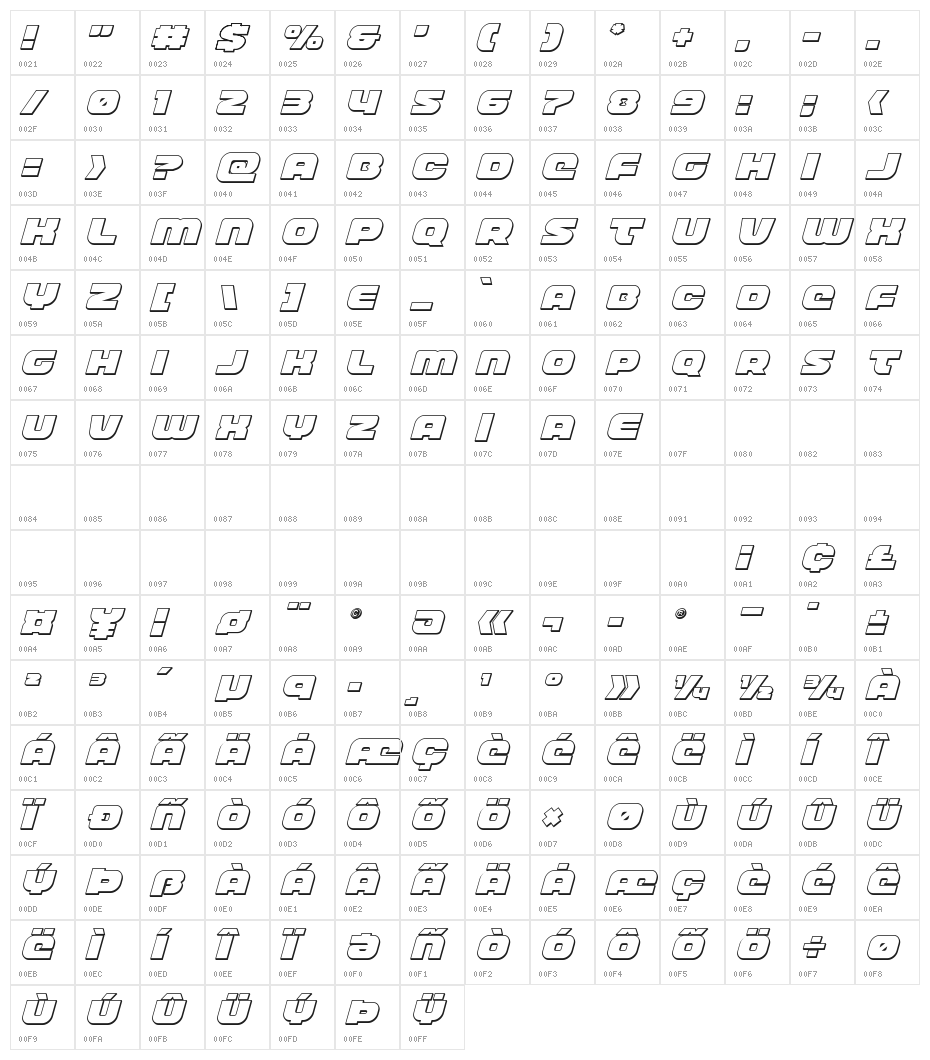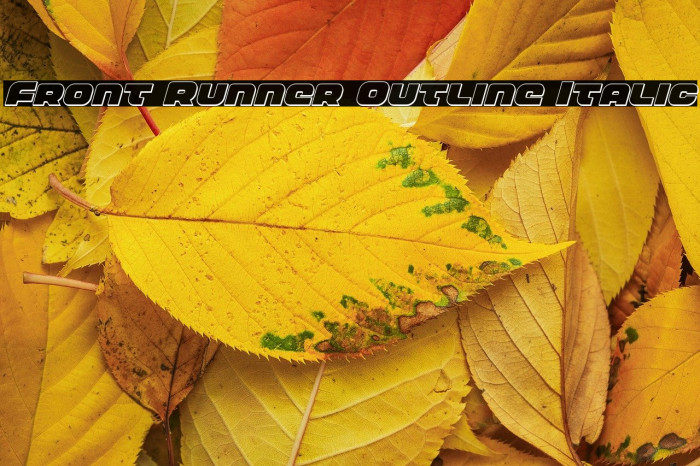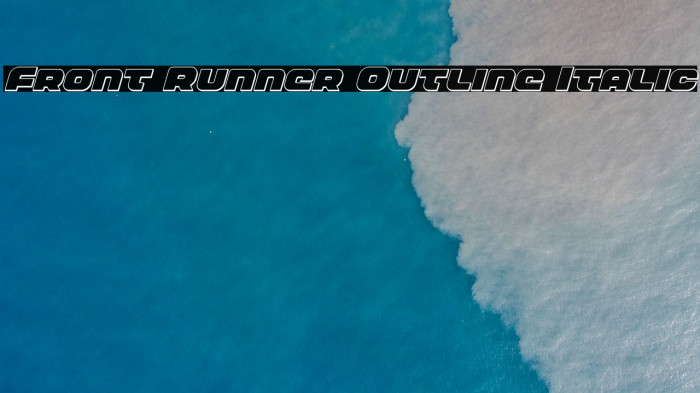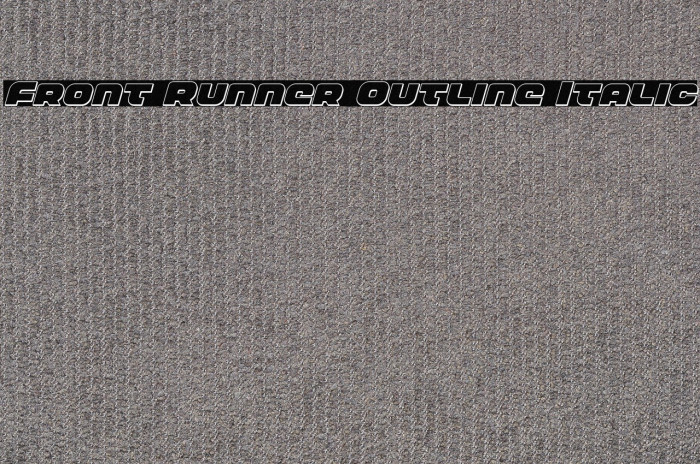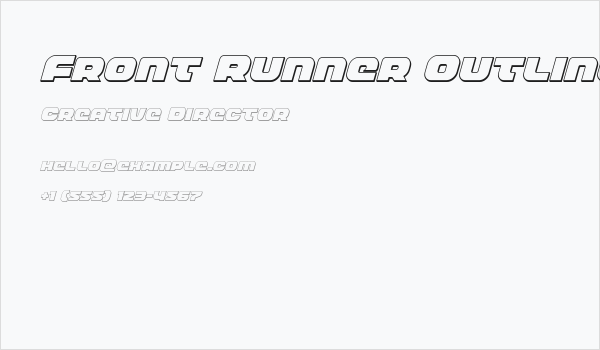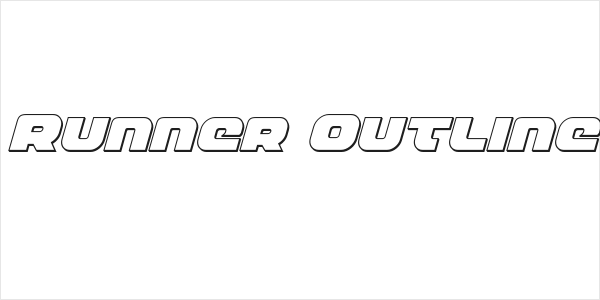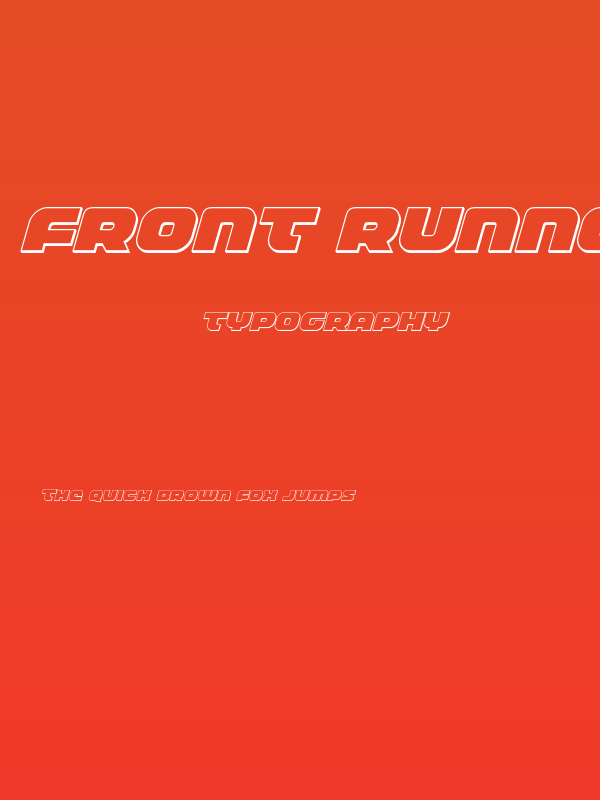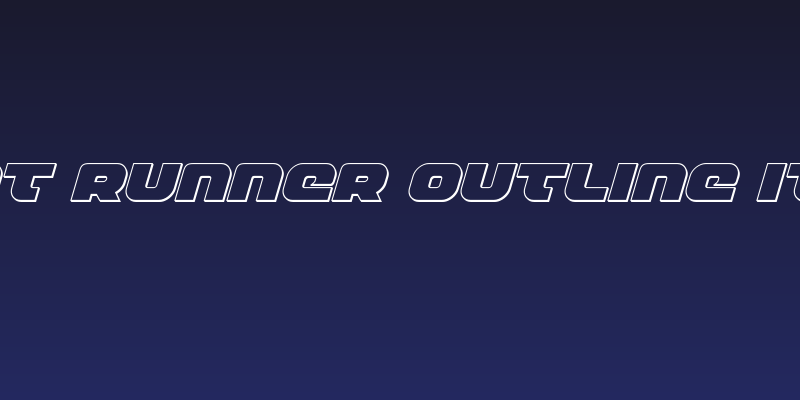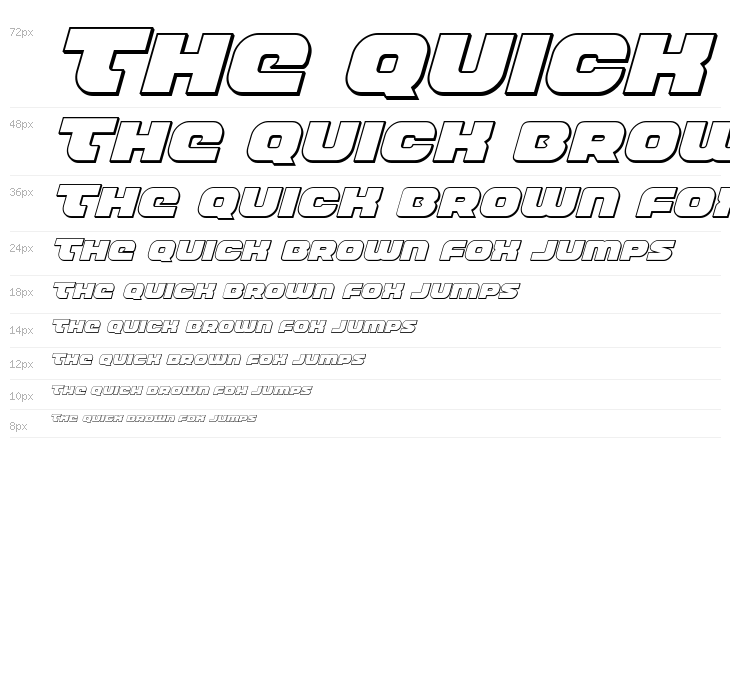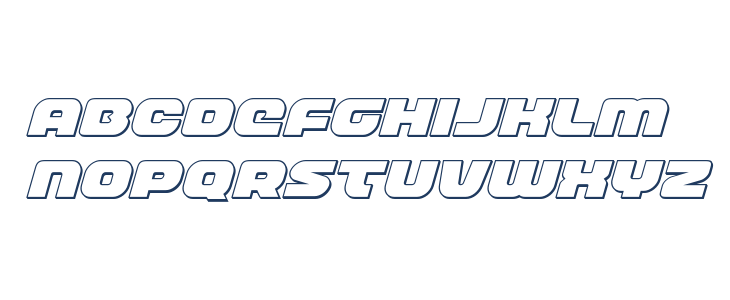
Front Runner Outline Italic Font
Front Runner Outline Italic Description
This font features a bold, outlined style with a distinct italic slant, giving it a dynamic and modern appearance. The characters are uppercase and have a geometric, block-like structure that is consistent across the alphabet. The numbers and special characters follow the same design principles, ensuring uniformity. The outline effect adds a layer of depth, making the text stand out prominently. This font is particularly eye-catching and is designed to capture attention with its strong visual impact.
| Proposed Projects | Ideal for sports branding, dynamic posters, modern advertisements, and eye-catching headlines. |